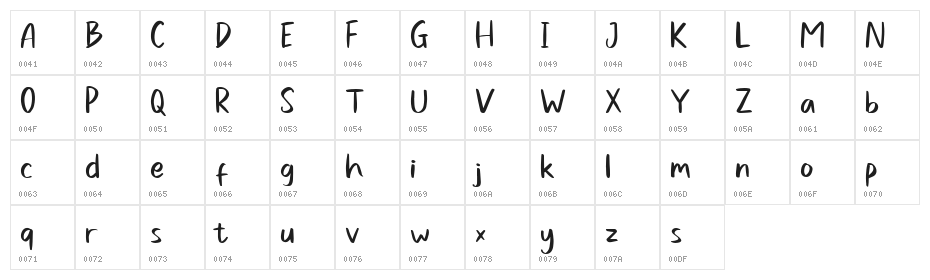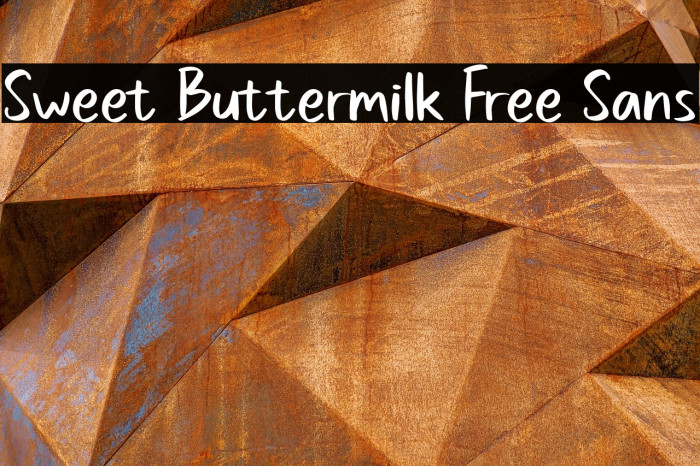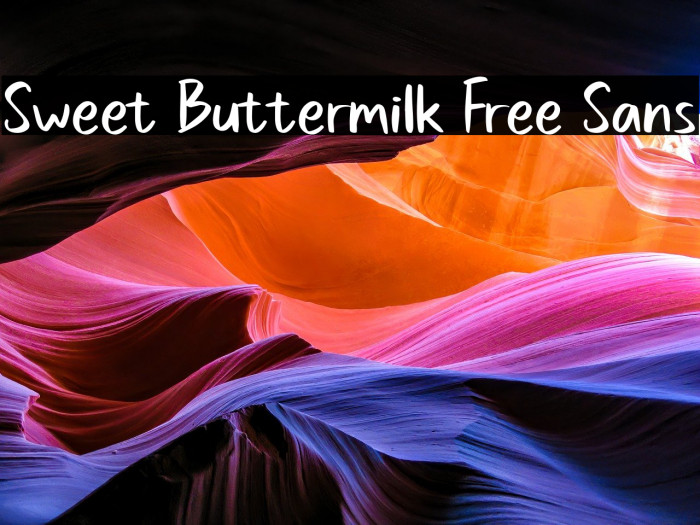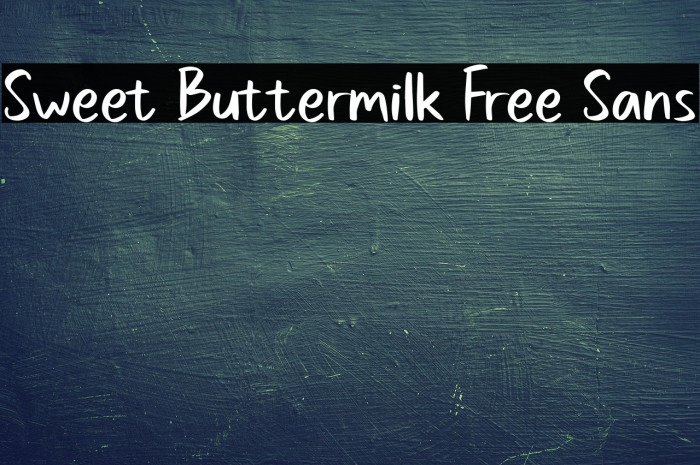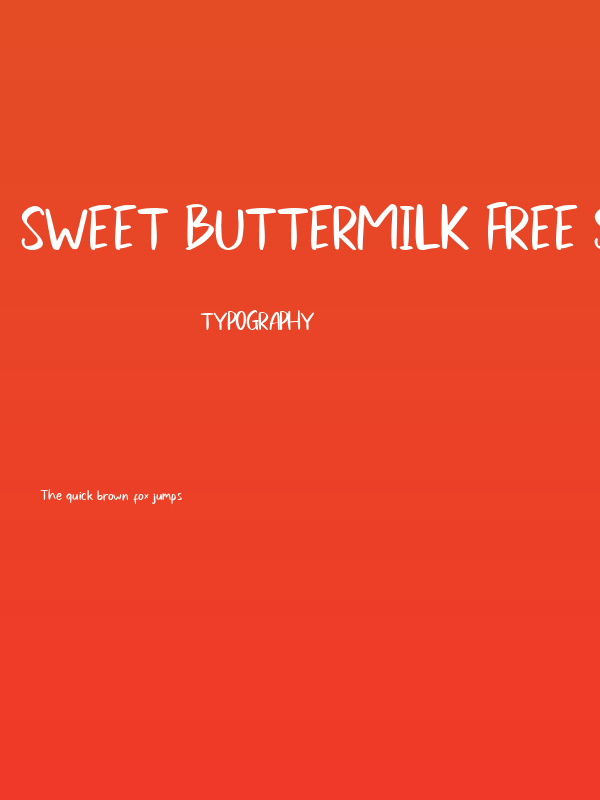
Sweet Buttermilk Free Sans Font
Sweet Buttermilk Free Sans Description
This font features a playful and casual handwritten style, characterized by its smooth, flowing lines and slightly irregular shapes. The letters have a friendly and approachable appearance, with rounded edges and a consistent stroke width that gives it a uniform look. The uppercase and lowercase letters maintain a cohesive style, making it versatile for various design needs. The font exudes a sense of warmth and informality, making it ideal for projects that require a personal touch.
| Use Case | Logos, Headlines, Informal Text |
| Proposed Projects | Ideal for greeting cards, personal branding, social media graphics, and informal invitations. |